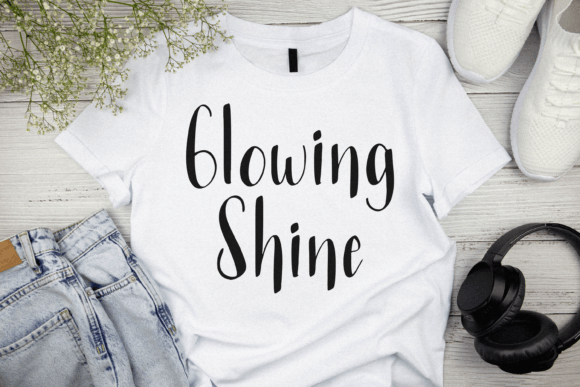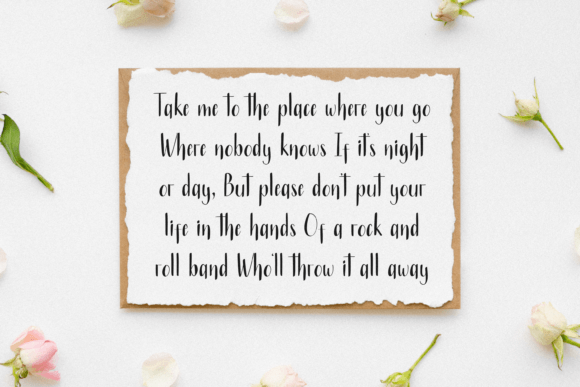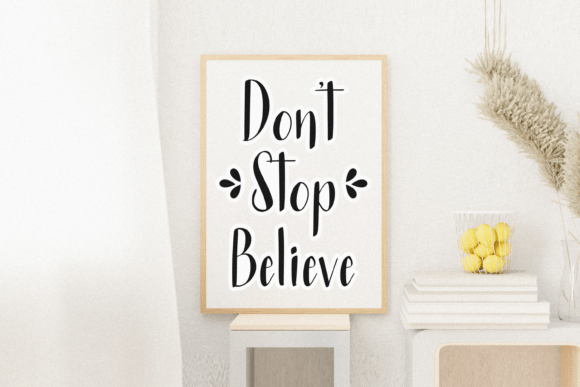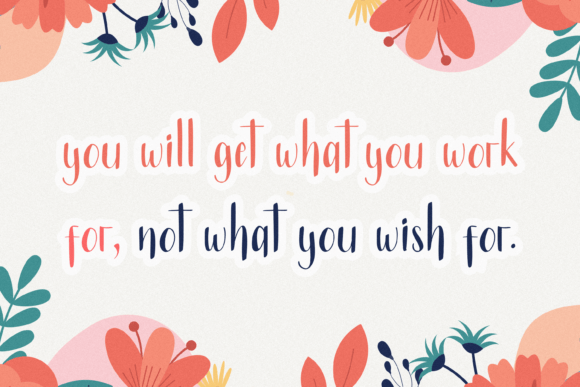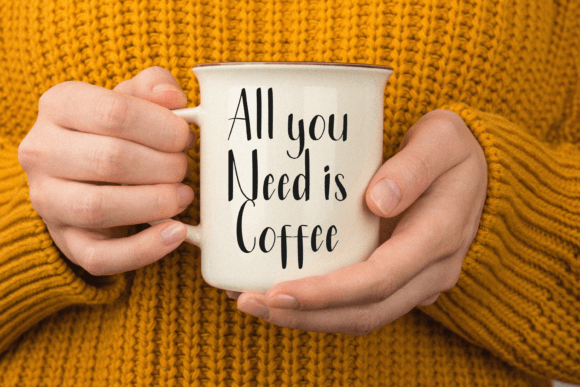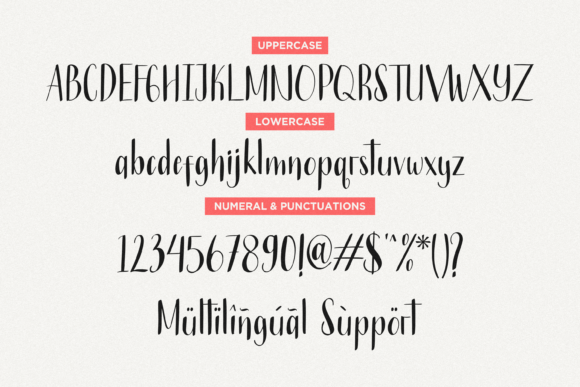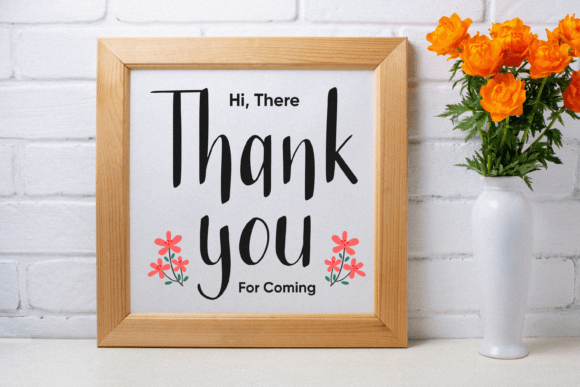
Bencoleng Font
**Bencoleng: A Fun and Casual Handwritten Font for All Occasions**
**Bencoleng** is a fun and casual handwritten font that adds a touch of playfulness to your designs. Whether you’re working on crafts, digital design, presentations, or greeting cards, this font has the potential to become your favorite go-to choice for any occasion.
**Bencoleng** stands out with its lively and carefree handwritten letterforms, exuding a sense of informality and creativity. The font’s relaxed strokes and friendly appearance make it a versatile and approachable option for a wide range of projects.
This font’s versatility ensures it can adapt to various design applications. Whether you’re creating digital content, crafting handmade cards, or presenting ideas, **Bencoleng** adds a dash of fun and personality to your work.
In crafts and handmade creations, this font enhances the personalized and unique aspects of your projects, making them memorable.
For digital design and presentations, **Bencoleng** adds a friendly and approachable tone, engaging your audience.
In conclusion, **Bencoleng** is more than just a font; it’s a design asset that brings a sense of fun and informality to your creative projects. Whether you’re designing for personal expression, professional presentations, or crafting, choose **Bencoleng** to infuse your work with its unique and cheerful character. Embrace its casual and playful design, and let your creativity shine for all occasions.